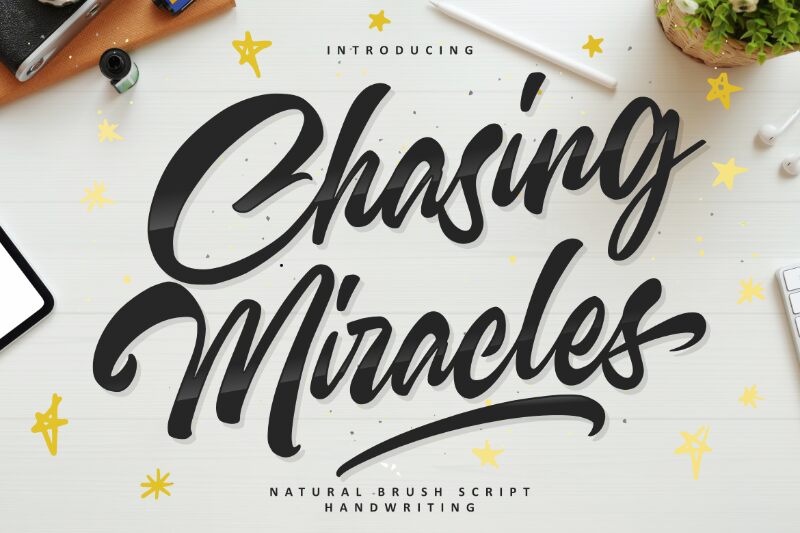
Inspired by nature, Ardian Nuvianto's Chasing Miracles script font is perfect for creating organic-looking designs. This natural brush style is ideal for projects such as logo design, wedding invitations and creative posters.